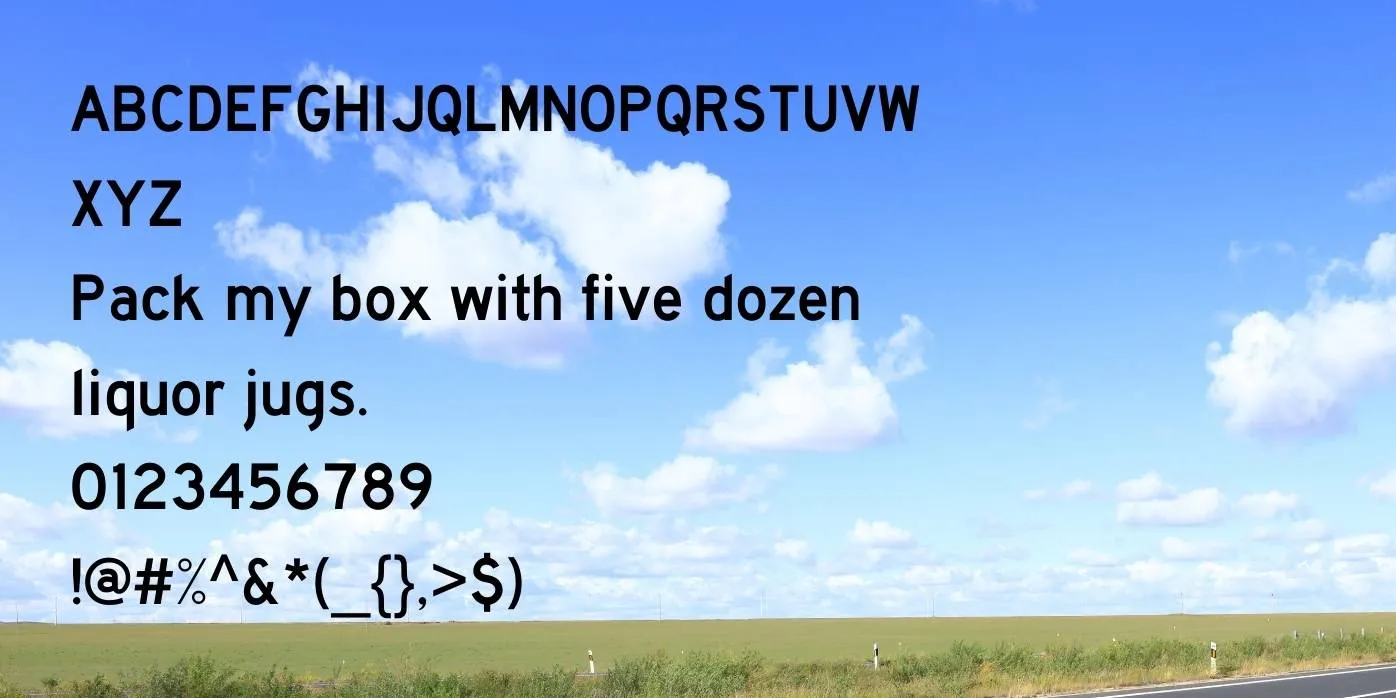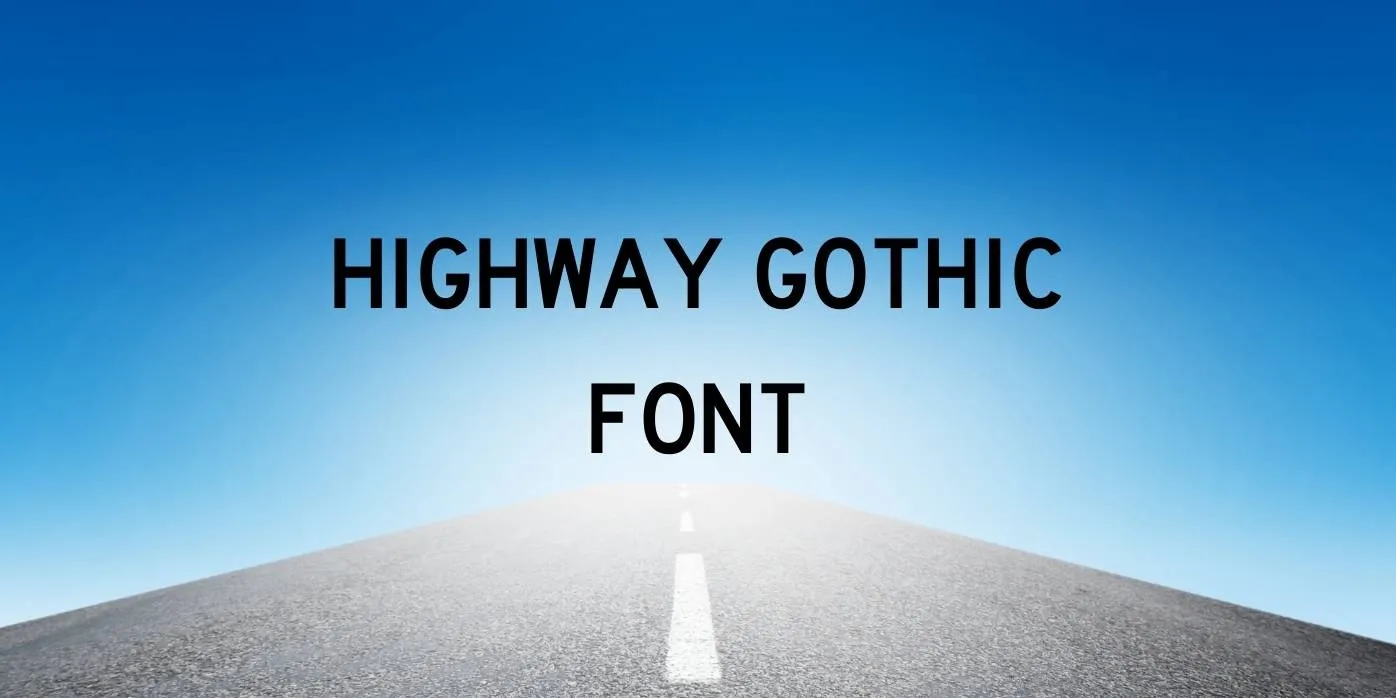
Highway Gothic Font
High Gothic is a natural typeface that has beautiful and unique characters. It belongs to a Sans Serif family and the great creation of Ash Pikachu Font. It has TTF features and is free for commercial use. The font family has great glyphs Includes Uppercase and Lowercase Letters, Numbers and Numerals, and different elementary symbols also.
It has beautiful weight consisting of  Condensed, Expanded, Narrow, Regular, and Wide, etc. The font family characters are very stylish and most legible due to their condensed look and little designing curves. It is very great for many applications such as Design software and CSS (Cascading Style Sheet).